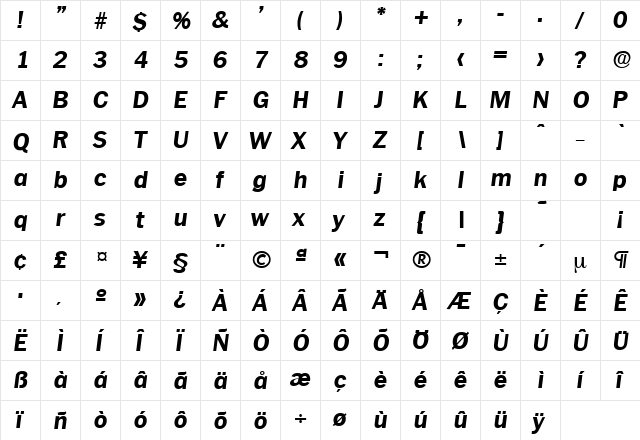
Plymouth-Serial-ExtraBold RegularItalic Font Preview
Design Context for Plymouth-Serial-ExtraBold Typeface
Plymouth-Serial-ExtraBold takes a measured approach to typography — its balanced proportions and neutral character make it a reliable workhorse for both digital and print work. The slanted form adds forward momentum and visual energy. The heavy weight commands attention and anchors typographic hierarchies.
Pro Tip: Try Plymouth-Serial-ExtraBold for annotation and caption copy alongside an upright companion — the contrast in angle creates a dynamic but ordered typographic system.